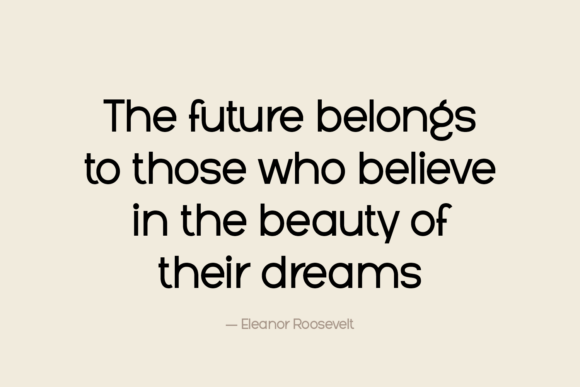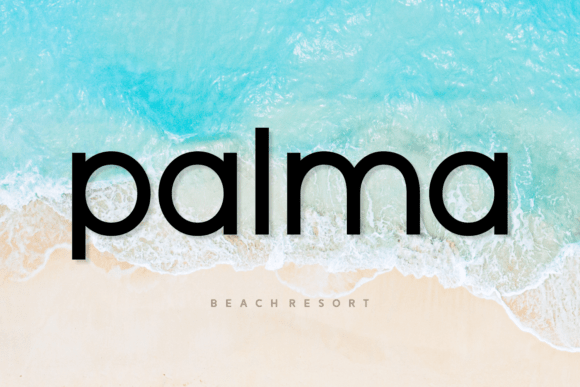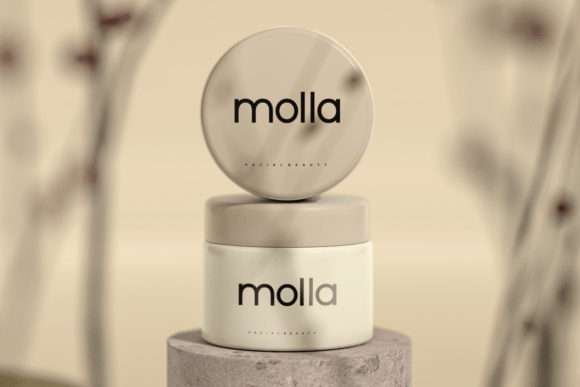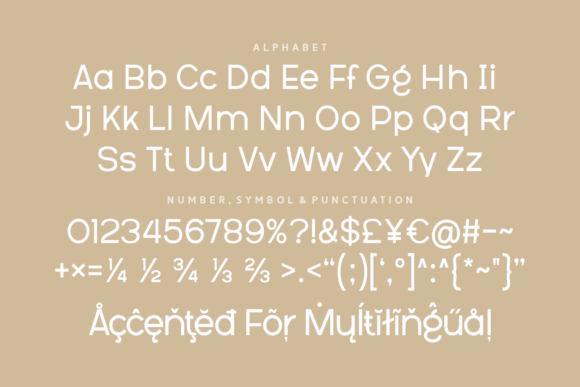
Introduction to Minvo Font
Minvo is a clean and modern sans serif font crafted with simplicity and versatility in mind.
Its rounded shapes and smooth geometry make it ideal for branding, web design, minimalist logos, and contemporary editorial layouts Minvo delivers a sleek, professional aesthetic while maintaining warmth and approachability—perfect for elevating your design projects with effortless style.